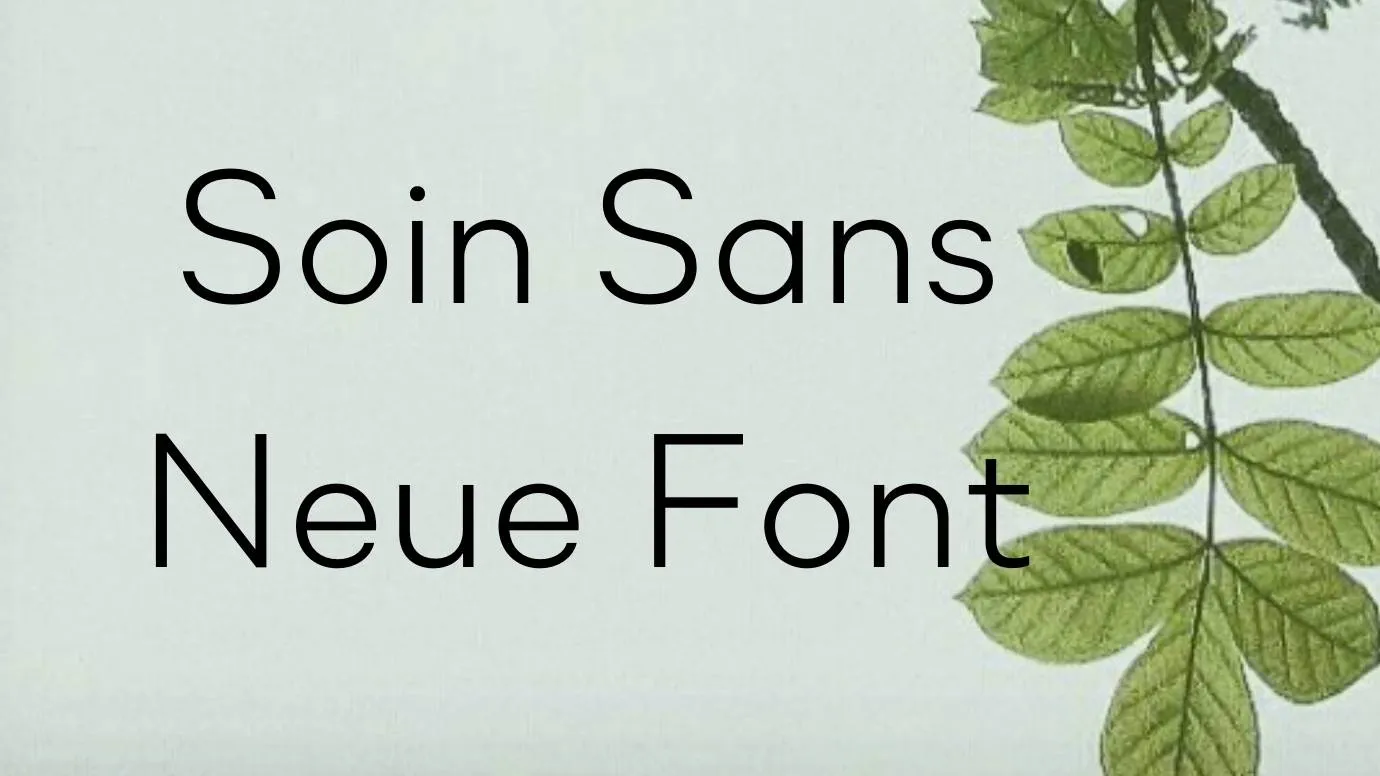
Soin Sans Neue Font Family is a modern typeface belongs to the sans-serif typeface in the font family. It was designed by Stawix Ruecha. This typeface was released in Stawix foundry in 2016.
Ford Antenna Font is the best alternative to this typeface due to its similar characteristics. It gives us simple and old-style designs of text and others. This typeface has a unique glimpse and texture ligatures.
Soin Sans Neue Font